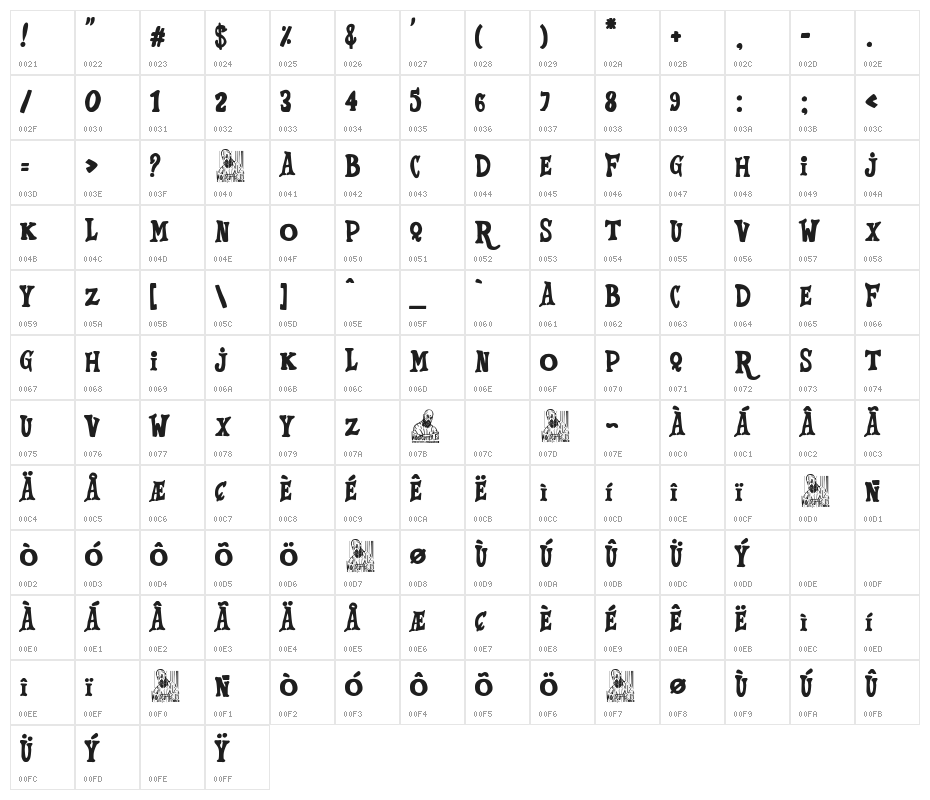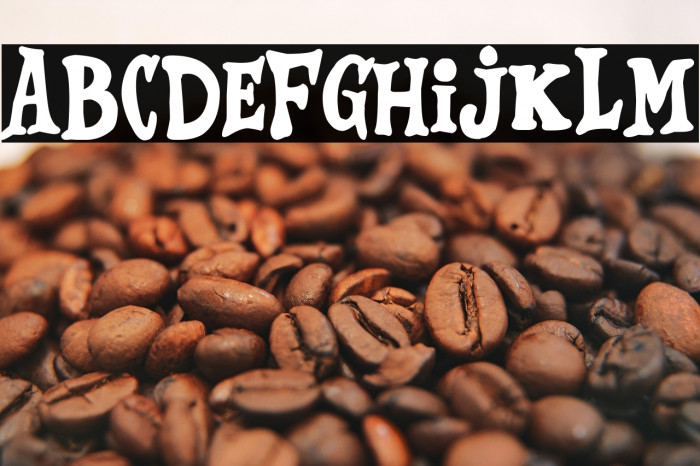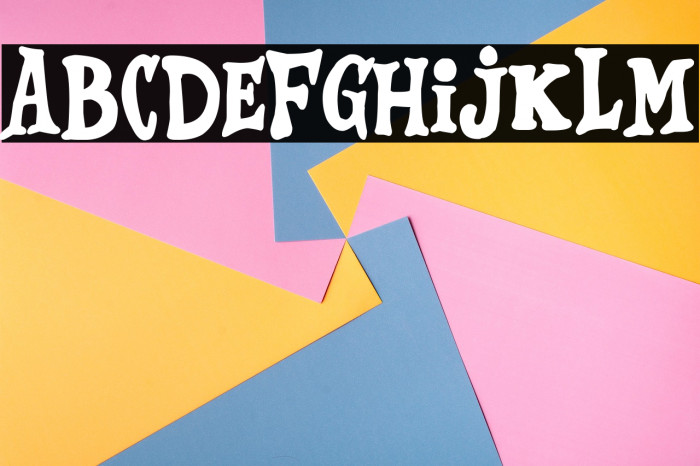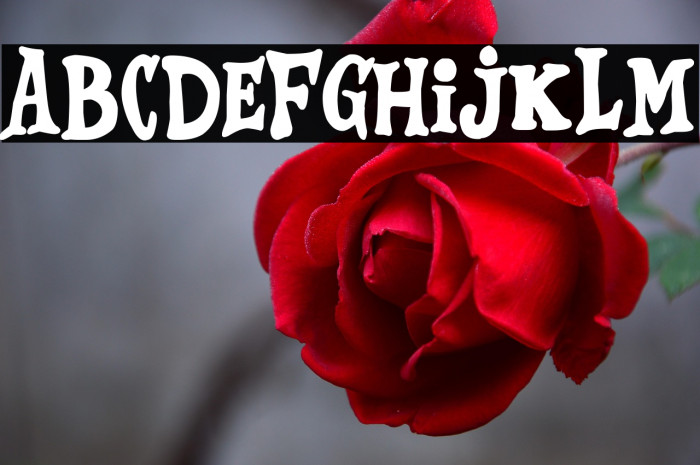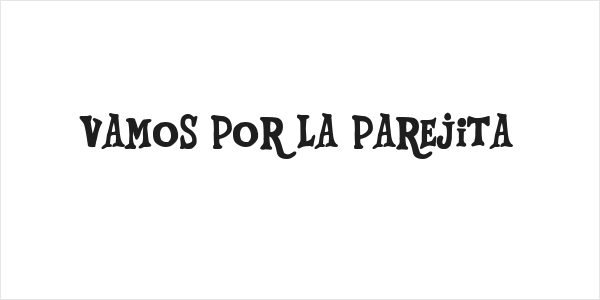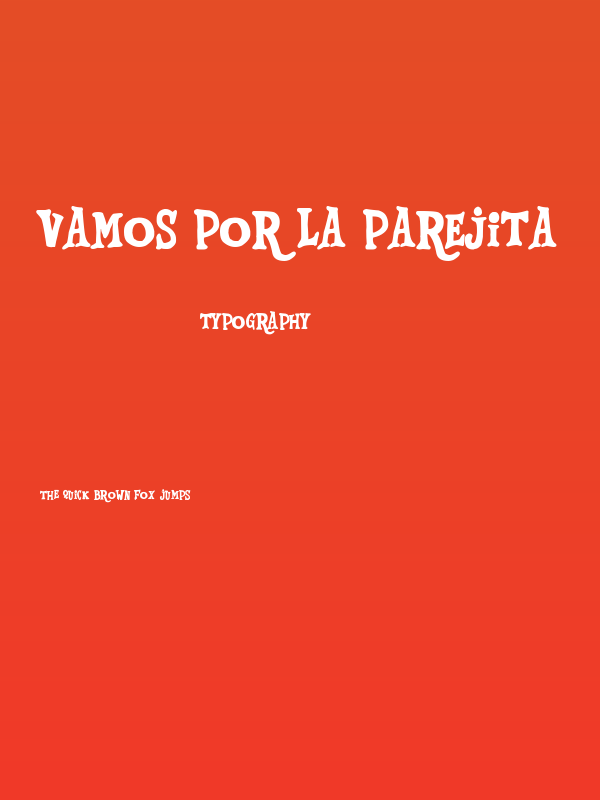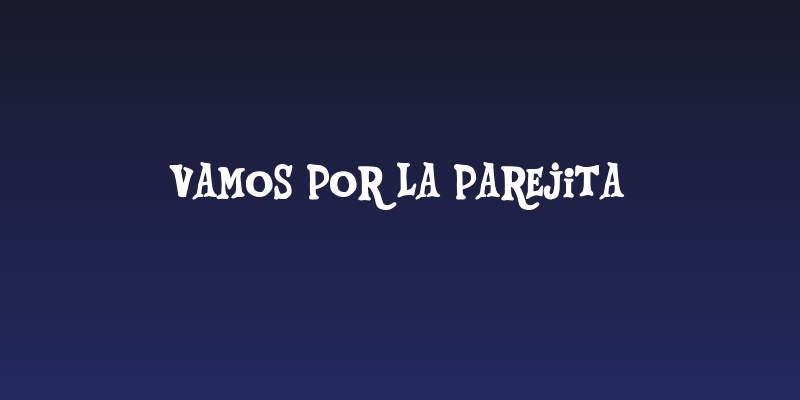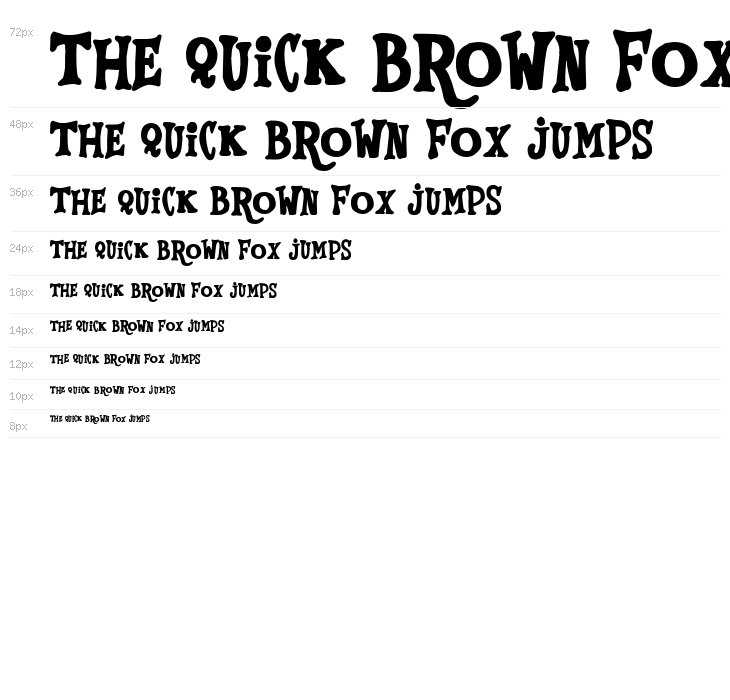
Vamos por la parejita Font
Vamos por la parejita Description
This font features a bold and playful design with a whimsical flair. The characters are thick and slightly irregular, giving them a hand-drawn appearance. The uppercase letters are robust and dynamic, while the lowercase letters maintain a consistent style with unique curves and angles. The numbers are equally bold, matching the overall aesthetic. Special characters are creatively styled, adding to the font's charm. This font's distinctive style makes it stand out, perfect for projects that require a fun and engaging look.